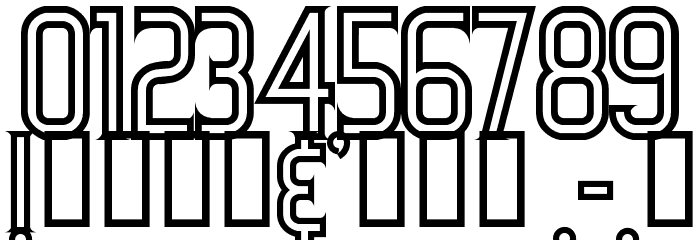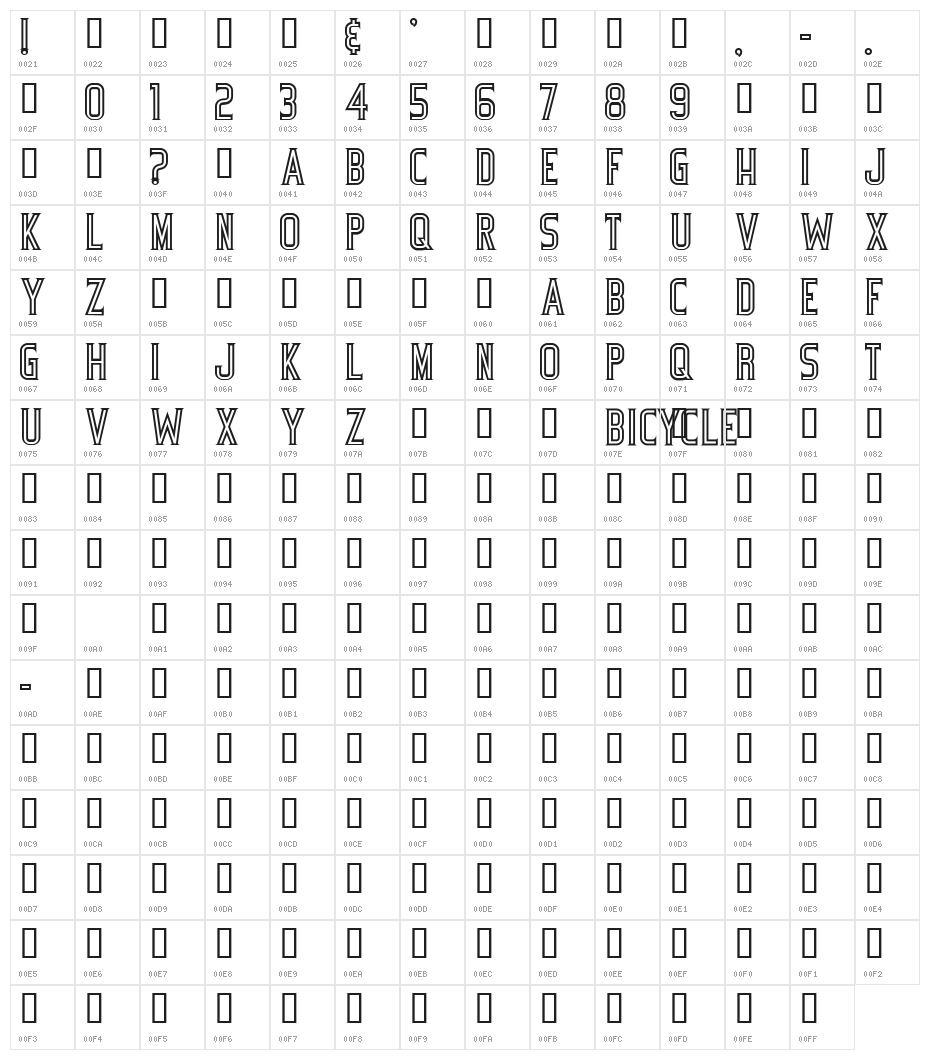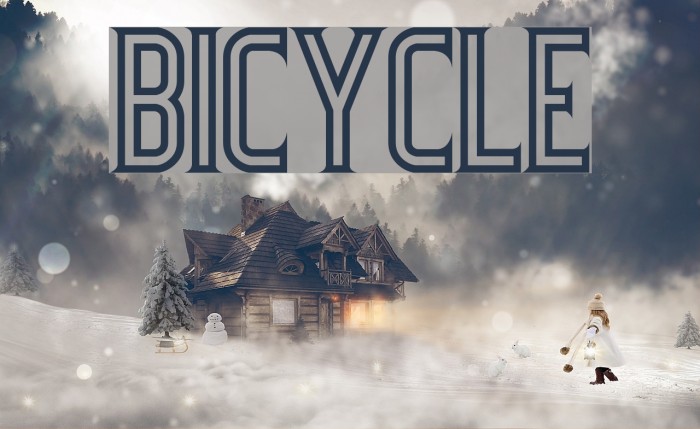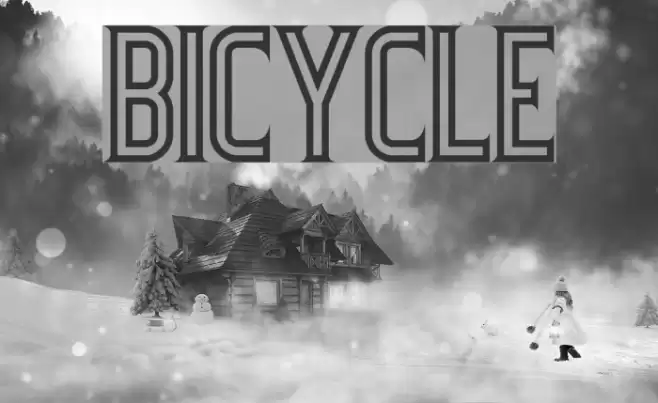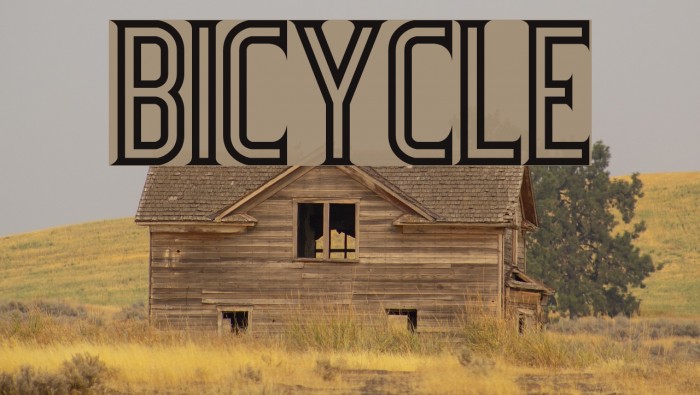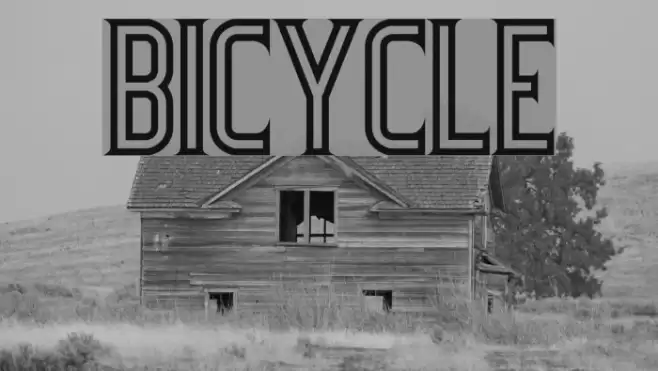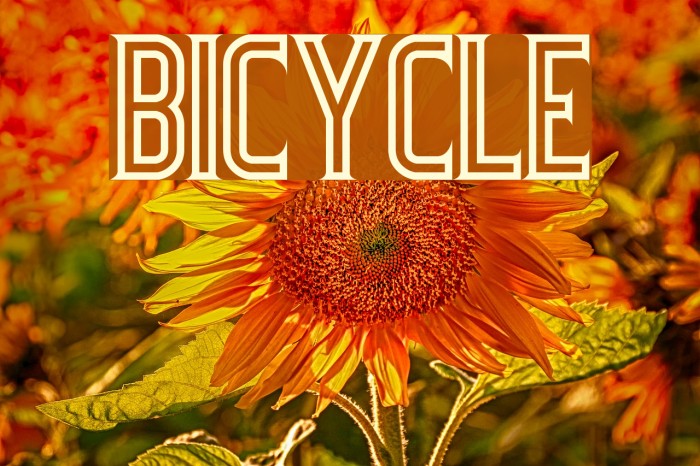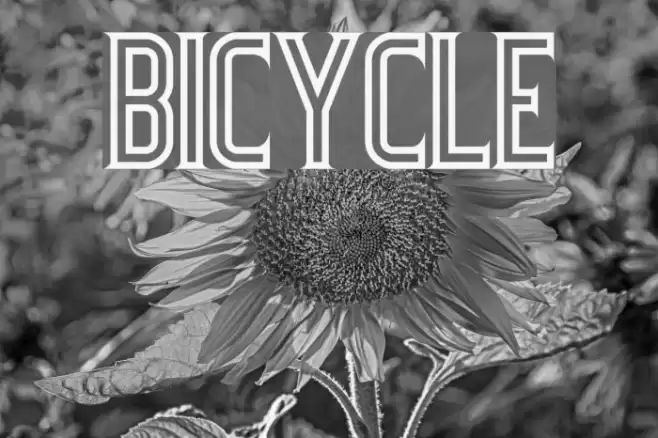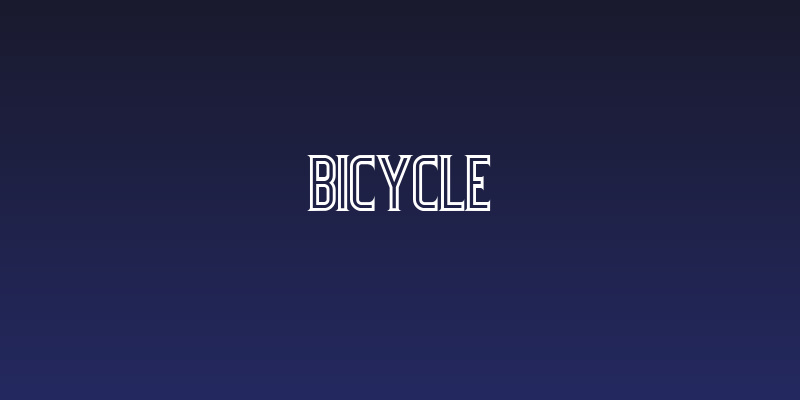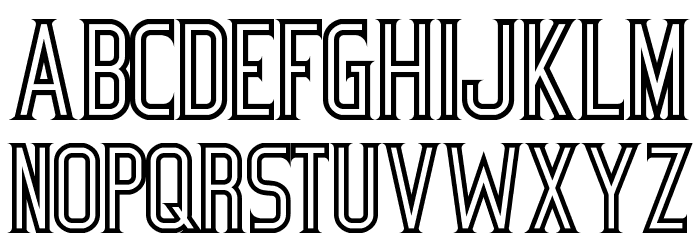
Bicycle Font
Bicycle Description
This font features a bold, geometric design with a strong emphasis on vertical and horizontal lines. The characters are outlined, creating a striking, hollow effect that adds depth and dimension. The uppercase letters are uniform in height, while the numbers and special characters maintain a consistent style, ensuring a cohesive look across all elements. The font's clean lines and structured form make it ideal for projects that require a modern and impactful appearance.